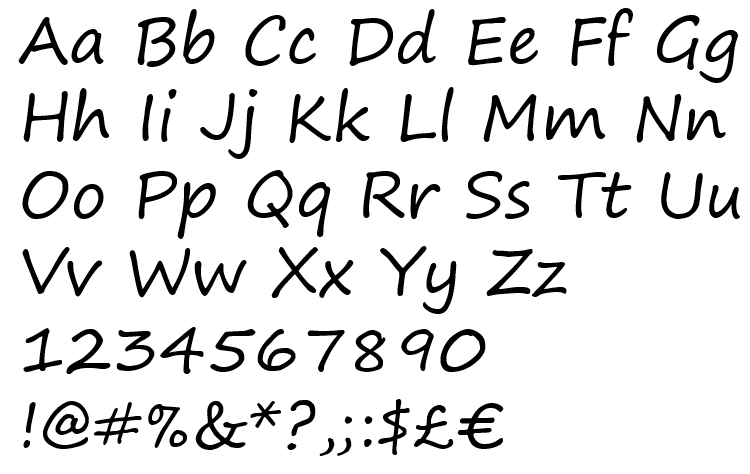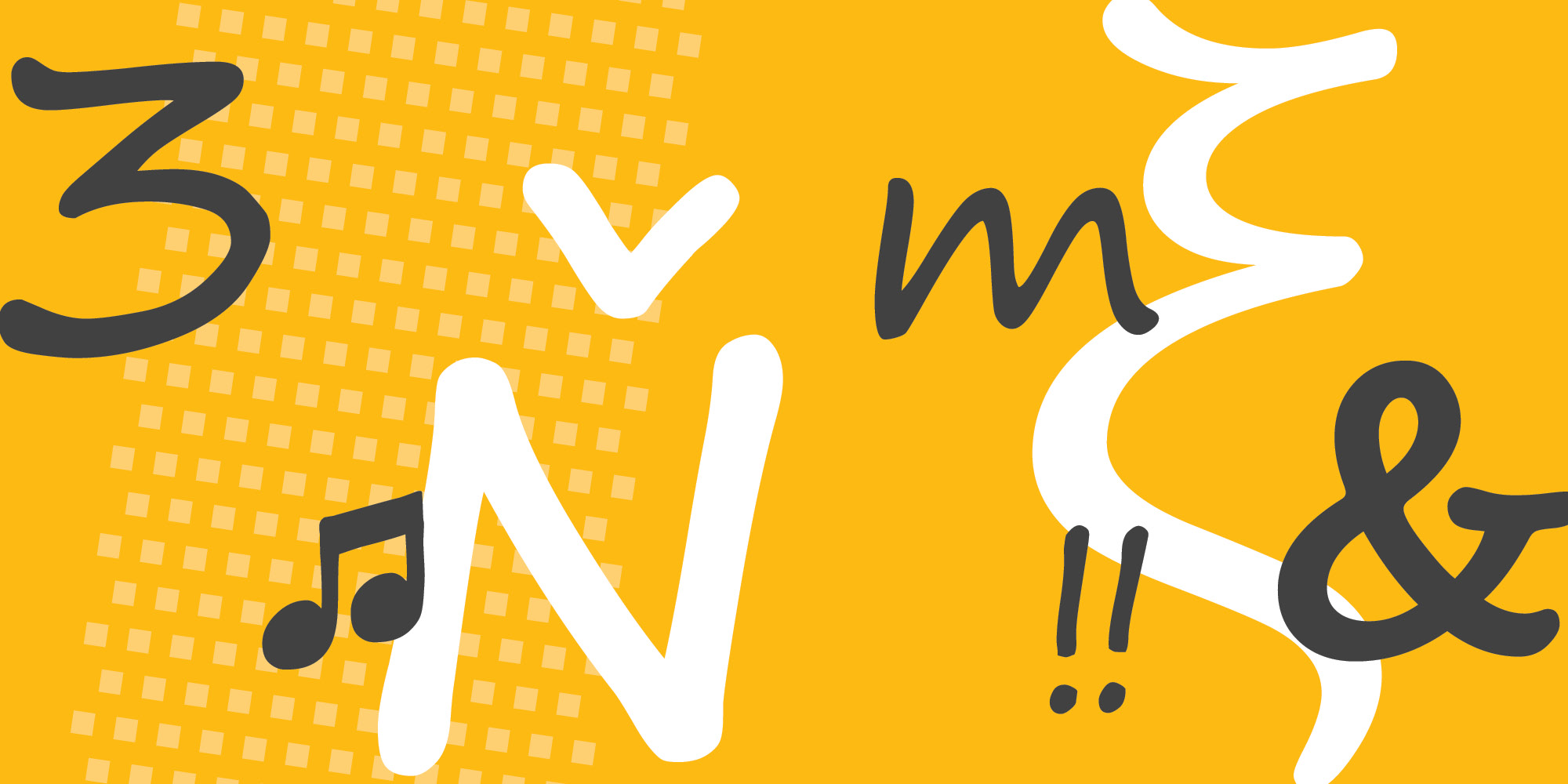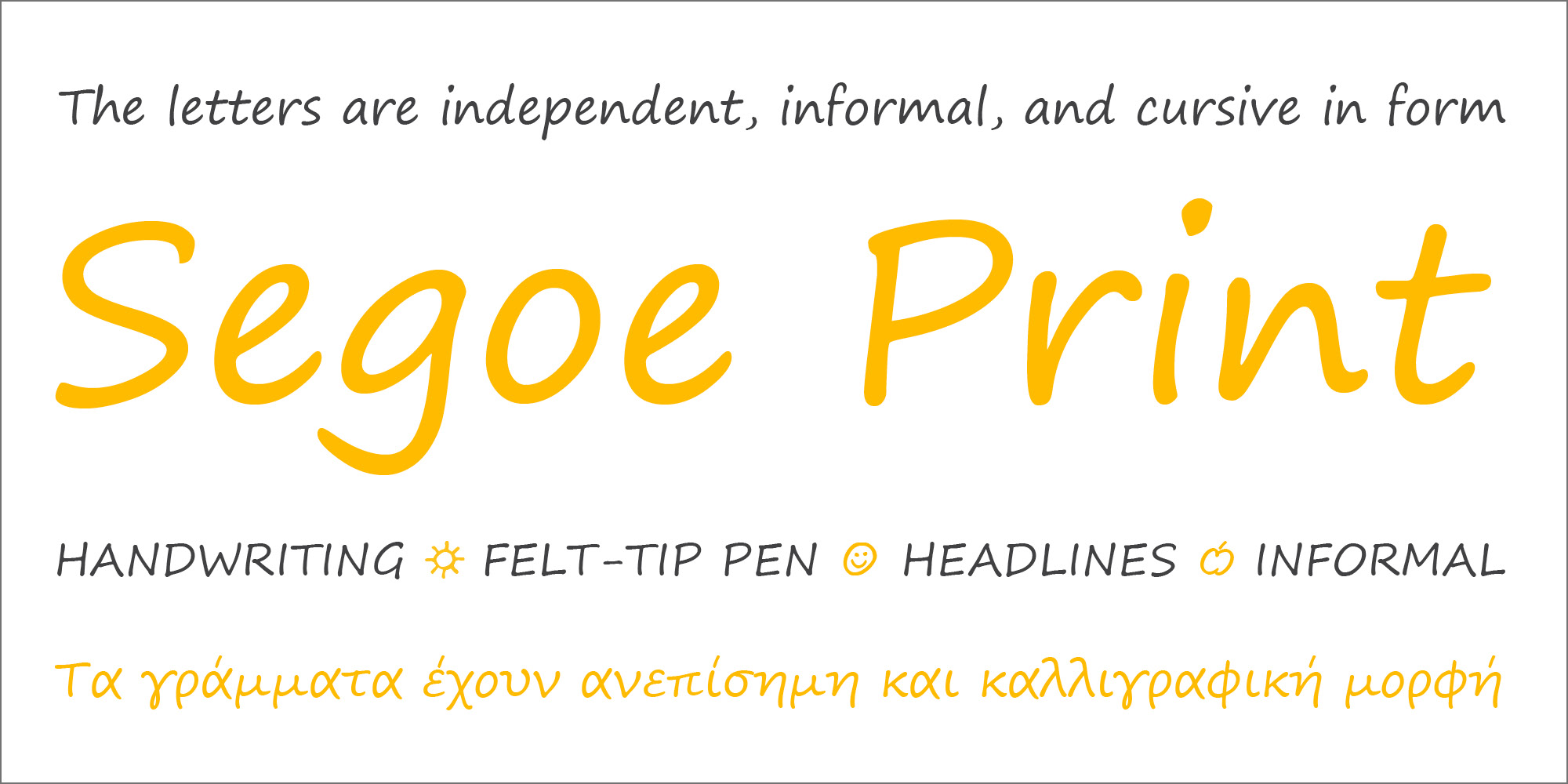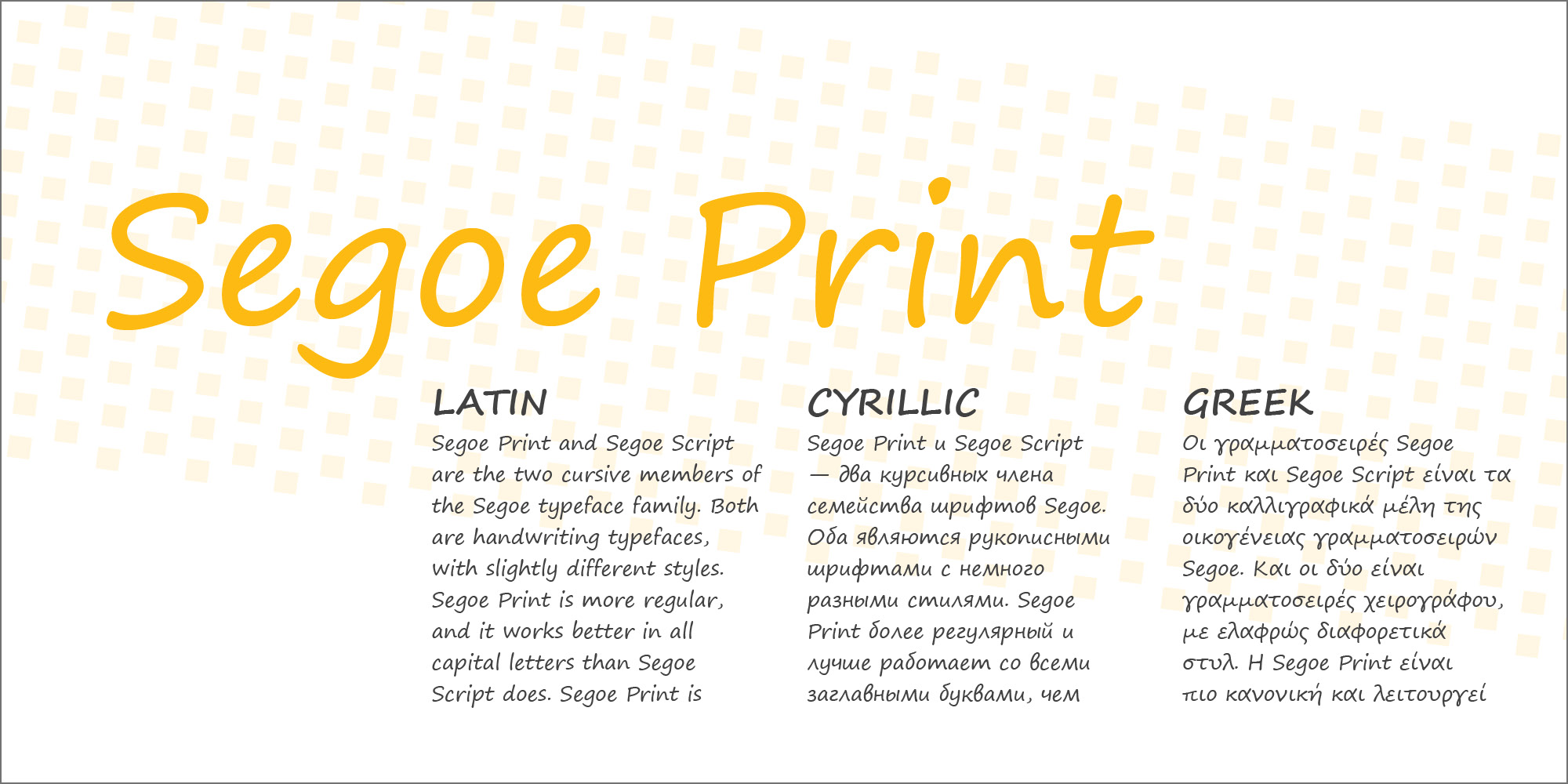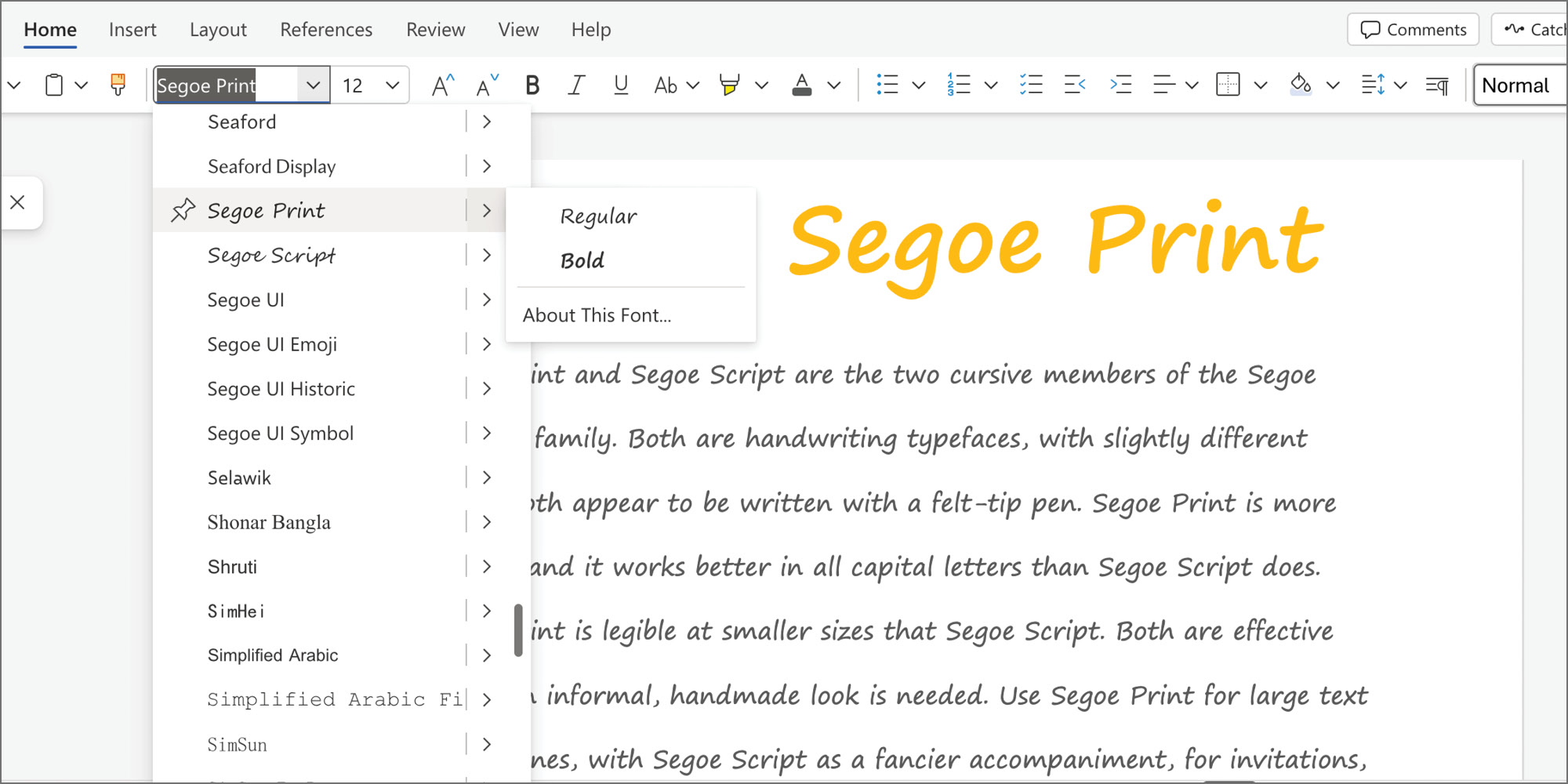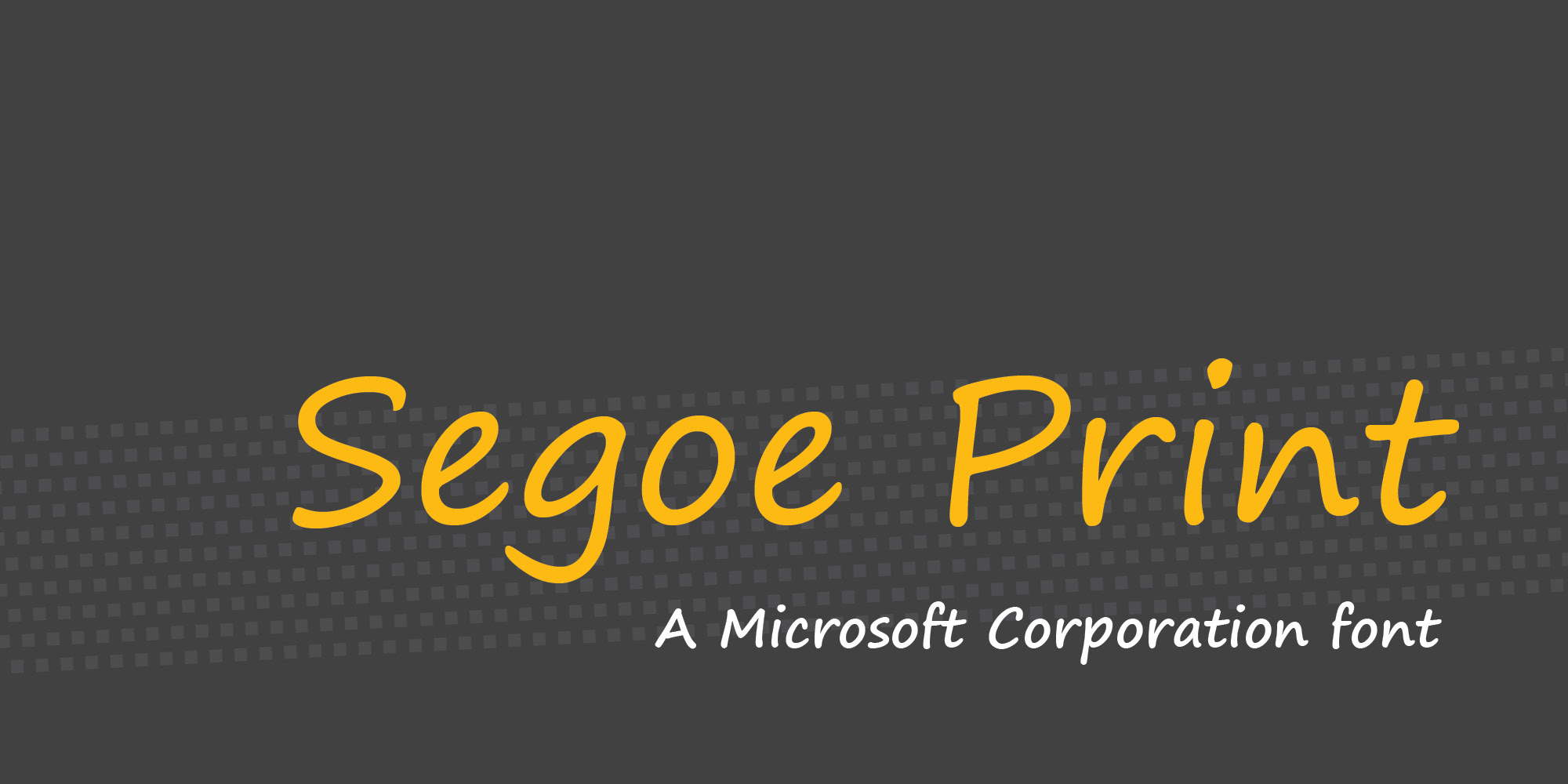
Segoe Print font family
Segoe Print and Segoe Script are the two cursive members of the Segoe typeface family. Both are handwriting typefaces, with slightly different styles. Both appear to be written with a felt-tip pen. Segoe Print is more regular, and it works better in all capital letters than Segoe Script does. Segoe Print is legible at smaller sizes than Segoe Script. Both are effective where an informal, handmade look is needed. Use Segoe Print for large text or headlines, with Segoe Script as a fancier accompaniment, for invitations, labels, flyers, brochures, or packaging. Segoe Script is designed by type designer Carl Crossgrove, based on the handwriting of Brian Allen. Segoe Print is an adaptation of his handwriting by Crossgrove, James Grieshaber, and Karl Leuthold. The letters in Segoe Script connect, like cursive handwriting, while the letters in Segoe Print are independent, though still informal and cursive in form.
Styles & Weights Segoe Print
Segoe Print Bold